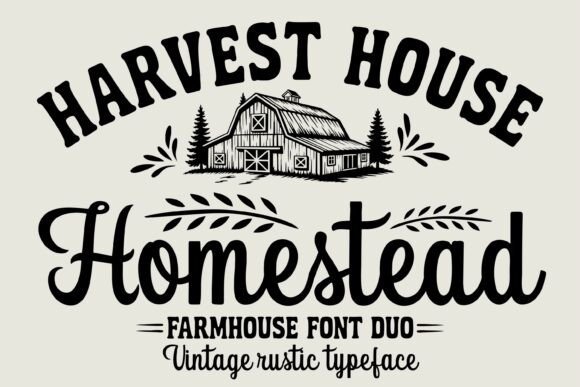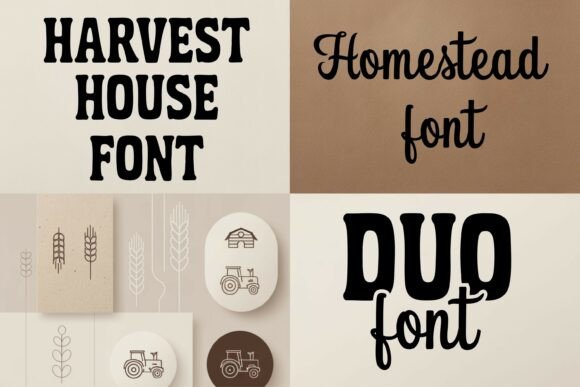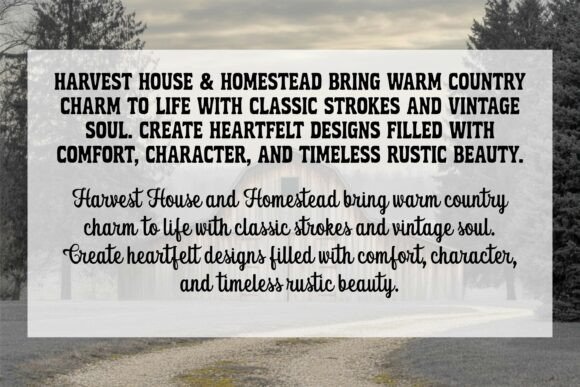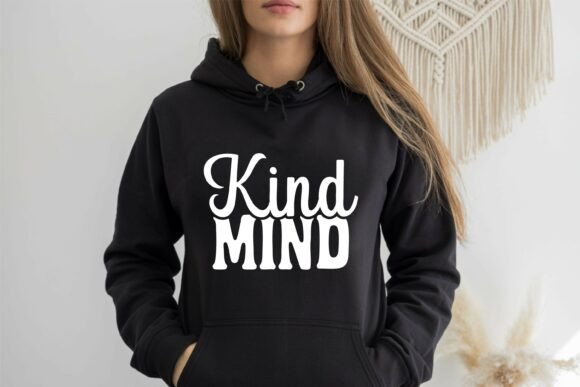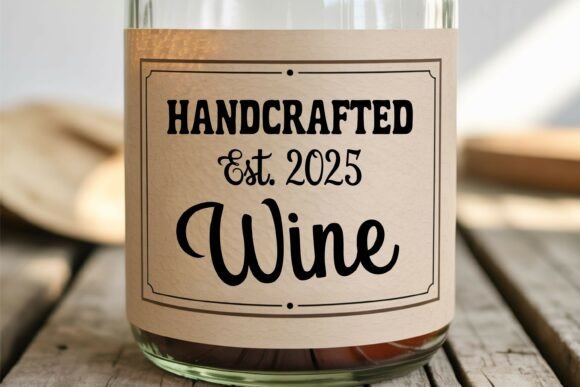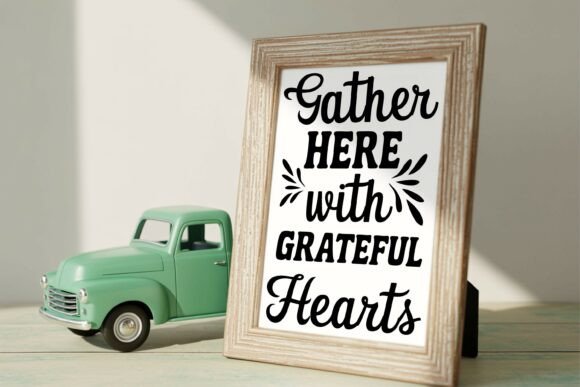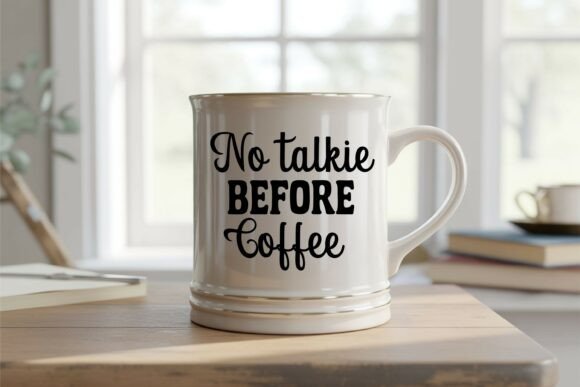
A Creative Moment that Spurred a Cozy Aesthetic
Have you ever been rummaging through a vintage market, surrounded by the rustic charm of old wooden signs and antique etchings? The memories of that moment can spark a creative itch, inspiring you to craft unique and heartwarming designs that evoke a sense of nostalgia and warmth. That’s exactly what the Homestead Font Bundle is all about – capturing the essence of a bygone era and infusing it into your modern creations.
This carefully crafted font duo is designed to transport your designs to a cozy, rustic world, perfect for crafting signs, labels, t-shirts, logos, stickers, and more. Whether you’re a seasoned designer or a crafting enthusiast, the Homestead Font is a valuable addition to your creative arsenal, allowing you to craft heartfelt and soulful designs that will leave a lasting impression.
Key Features of Homestead Font
- Unique Characteristics: Homestead Font features a unique blend of modern and traditional design elements, with subtle nuances that evoke a sense of warmth and elegance.
Homestead Font Review
Overall, I’m quite impressed with the Homestead Font. ✨ It has a charming, rustic feel that’s perfect for creating a cozy atmosphere in your design projects. The font’s organic shapes and irregularities give it a unique, handcrafted look that’s hard to resist.
- ✨ Distinctive personality: Homestead Font has a clear, recognizable style that sets it apart from more generic fonts.
- ✨ Versatility: It works well in both body text and headings, making it a great choice for a wide range of projects.
- ✨ Legibility: Despite its organic feel, the font is surprisingly easy to read, even at smaller sizes.
- ⚠️ Limited font sizes: While the font is legible at most sizes, it starts to lose its charm at very small sizes (e.g., smaller than 10pt).
- ⚠️ Limited language support: As a script font, Homestead Font may not include support for all languages or character sets.
Overall, I’d recommend the Homestead Font for projects where you want to create a warm, inviting atmosphere. Just be mindful of its limitations, and you’ll be golden.
The Homestead Font is a versatile font suitable for various designs, including:
- Invitations and event designs
- Wedding and party invitations
- Business cards and stationery
- Blog and website headers
For the best results, use the Homestead Font in combination with earthy colors and natural textures to create a cohesive and inviting design.